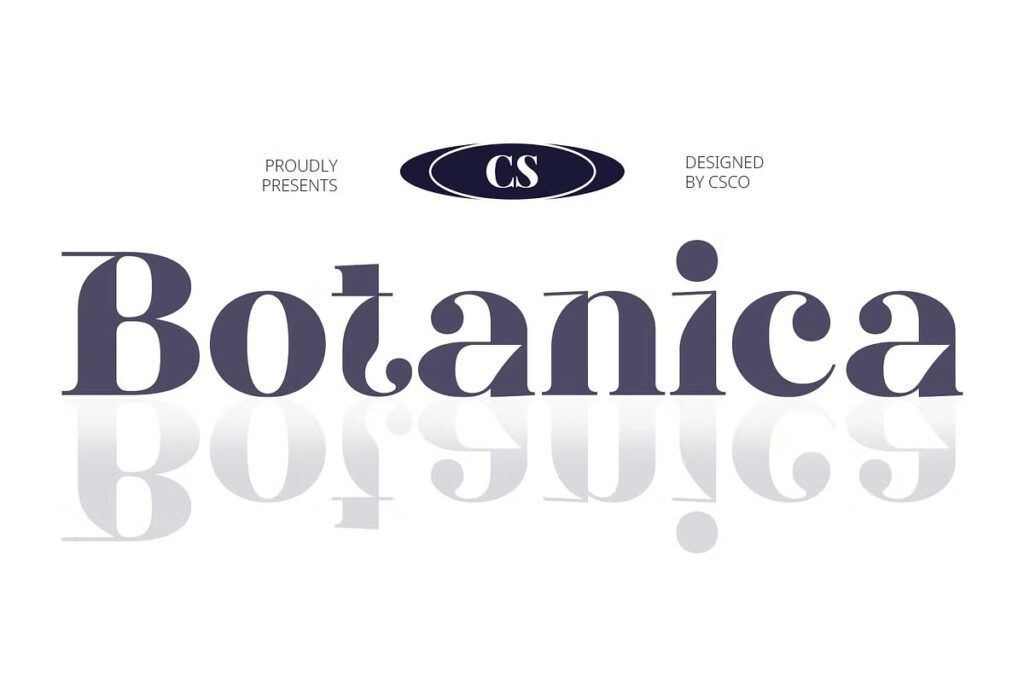
Elevate Your Design Projects with “CS Botanica – Elegant Font”
CS Botanica – Elegant Font is a sophisticated Didone serif typeface that effortlessly combines timeless elegance with modern flair. Perfect for luxury and high-end designs, this font is ideal for those who want to convey opulence and refinement in their projects.
Why Choose CS Botanica for Your Luxury Designs?
1. Modern Didone Serif with High Contrast CS Botanica features a high-contrast Didone serif design, characterized by sharp, clean lines and graceful curves. This combination of thick and thin strokes creates a striking visual impact, making it an excellent choice for luxury branding, upscale packaging, and refined editorial layouts.
2. Perfect for High-End and Luxury Designs Whether you’re working on a branding project for a luxury brand, designing elegant packaging, or creating a polished editorial layout, CS Botanica adds a touch of sophistication that enhances the overall aesthetic. Its modern yet timeless appeal ensures that your designs will stand out with a luxurious and opulent look.
3. Elegant and Sophisticated Impression The well-balanced proportions and high-contrast strokes of CS Botanica create a sense of elegance and sophistication that is perfect for high-end projects. Its sleek, modern appearance, combined with classic serif details, makes it versatile enough for various design applications, while still maintaining a refined and polished look.
4. Versatility Across Opulent and Timeless Projects CS Botanica excels in adding a luxurious touch to a wide range of design applications. Whether you’re designing for print or digital media, this font’s modern Didone style ensures versatility while maintaining a timeless appeal. It’s the ideal choice for projects that demand a sophisticated and high-end appearance.
5. Comprehensive Font Features CS Botanica comes in three styles: Regular, Italic, and Reverse Italic, providing flexibility for your design needs. It includes uppercase and lowercase characters, numerals, punctuation, accents, and supports multilingual characters. The font is also PUA encoded, making it easy to use in any design software without requiring specialized tools.
CS Botanica – Elegant Font is the perfect typeface for designers looking to infuse their projects with a sense of luxury and refinement. Its modern Didone serif design, high contrast, and elegant features make it ideal for high-end branding, sophisticated packaging, and polished editorial layouts. Elevate your designs with the timeless opulence of CS Botanica.